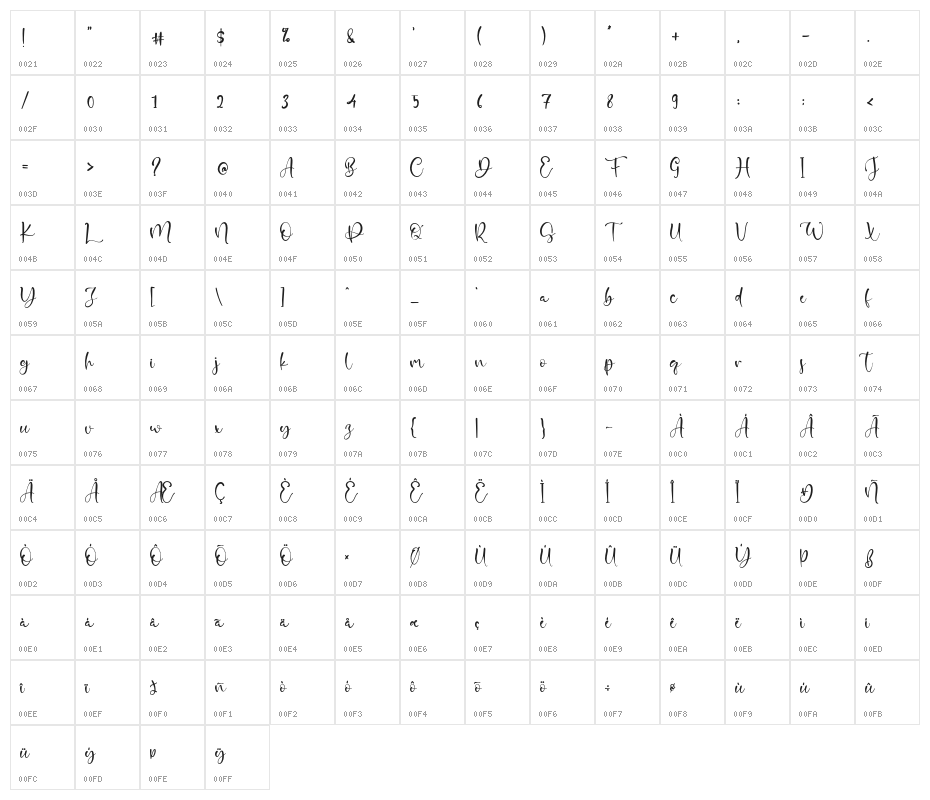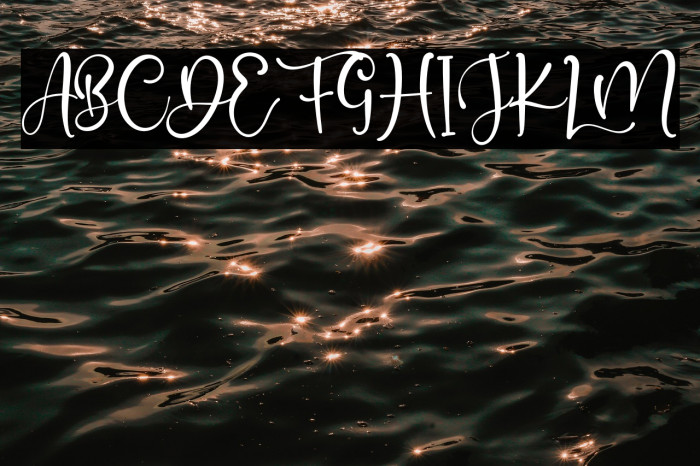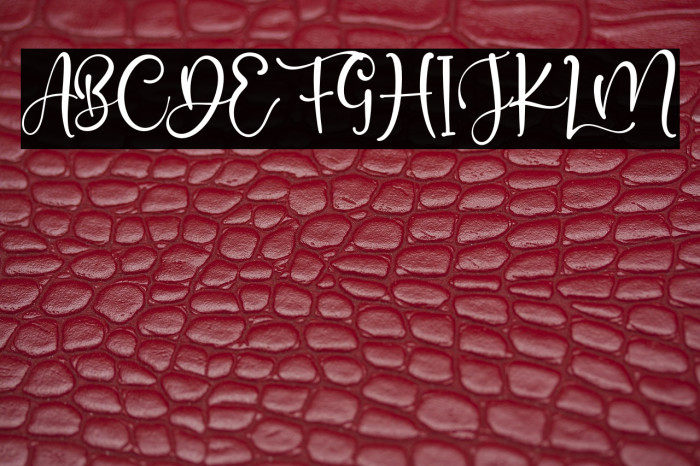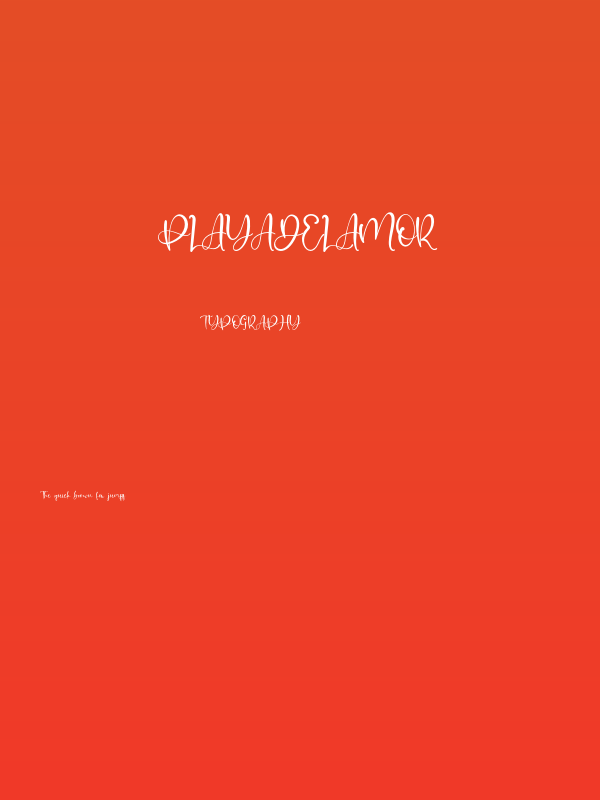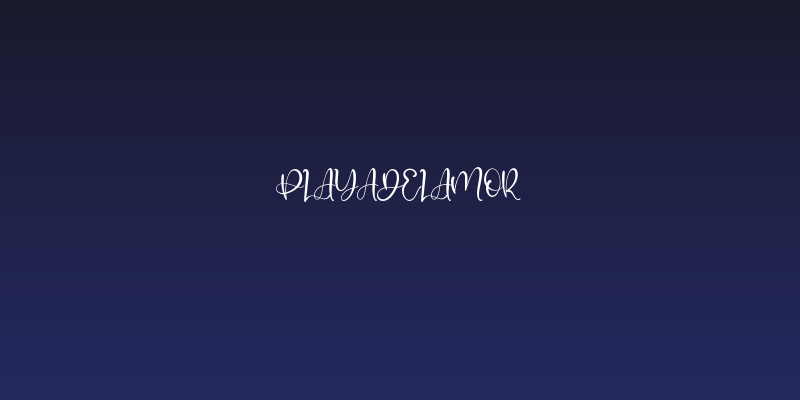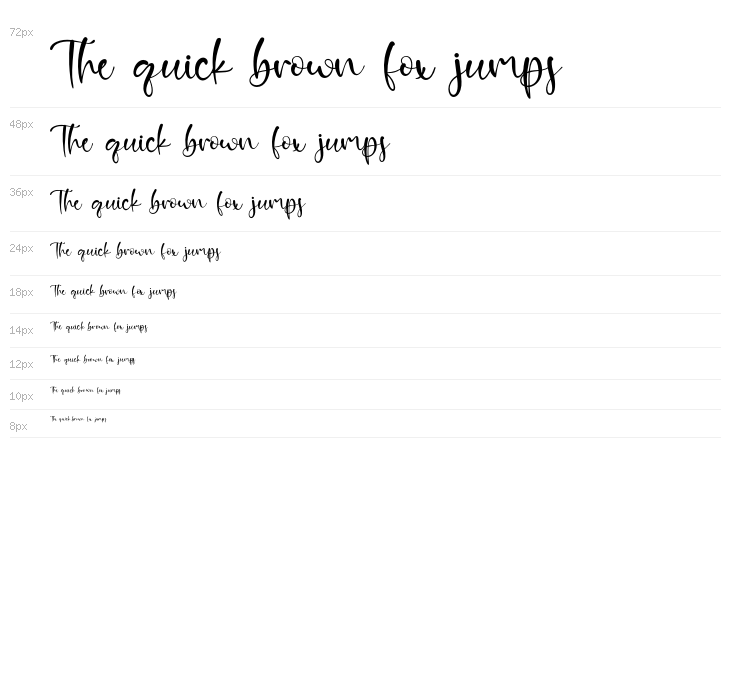
PlayaDelAmor Font
PlayaDelAmor Description
This font features an elegant and flowing script style, characterized by its fluid, cursive strokes and artistic flair. The uppercase letters are bold and expressive, with intricate loops and swirls that add a touch of sophistication. The lowercase letters maintain a consistent style, offering a harmonious blend of curves and lines that create a cohesive look. The numerals are distinct and easy to read, while the special characters complement the overall design with their stylish and decorative appearance. This font exudes a sense of elegance and creativity, making it suitable for a variety of design projects.
| Overall Style | Elegant, Decorative |